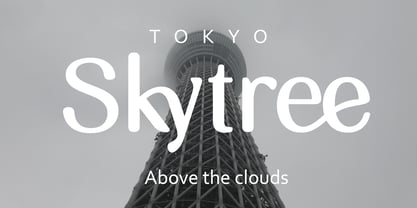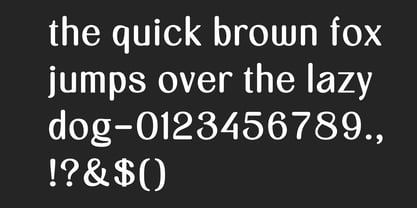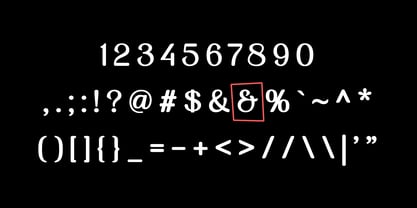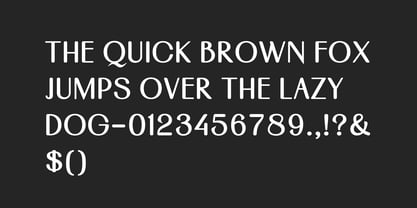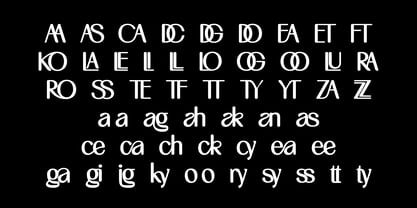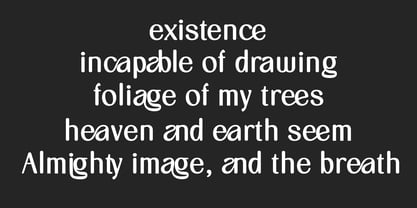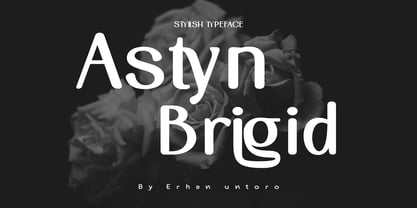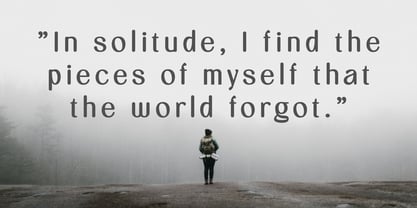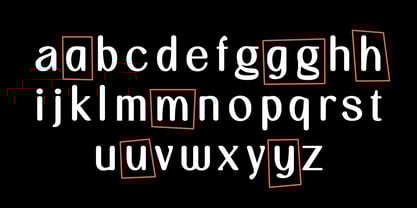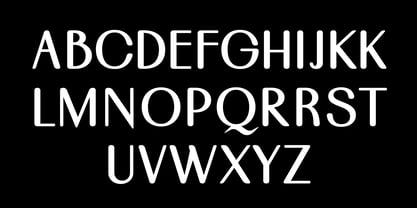
Astyn Brigid
The Astyn Brigid Font Family was designed by Erhan Untoro and published by EruStudio. Astyn Brigid contains 1 styles. More about this family
Astyn Brigid is a stylish and modern display typeface that blends smooth curves with a playful yet elegant personality. Its unique letterforms and balanced proportions make it perfect for eye-catching headlines, branding projects, logo designs, and editorial layouts. The typeface carries a fresh and contemporary vibe while maintaining a touch of sophistication, making it versatile for both creative and professional applications. Whether used in bold titles or minimal compositions, Astyn Brigid stands out with its distinctive charm and refined aesthetics.
Designers: Erhan Untoro